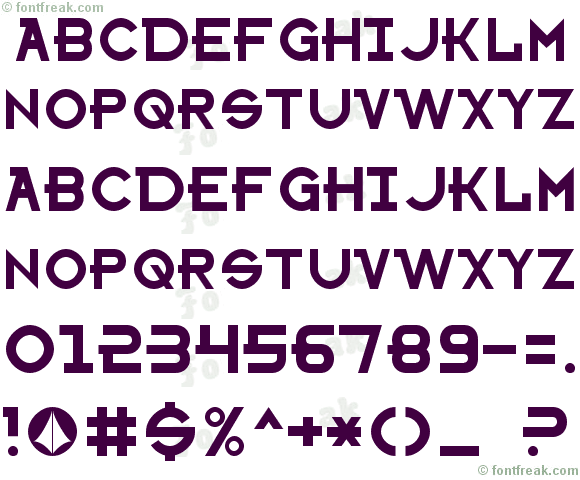
Kanno
About Kanno
Kanno is a striking sans-serif font designed by Neale Davidson in 2011, showcasing a contemporary aesthetic that marries minimalism with functionality. This font features a clean and modern approach, characterized by its geometric forms and balanced proportions. The stroke weight is consistent throughout, offering a sense of stability and clarity, while the moderate contrast between thick and thin lines adds a subtle dynamism to its overall appearance. The spacious letterforms enhance legibility, making Kanno a versatile choice for various applications.
The Kanno font shines in several specific use cases. It is ideal for branding projects, where clarity and modernity are paramount. Graphic designers can utilize Kanno in creating sleek logos that stand out in competitive markets. Additionally, its clean lines make it suitable for restaurant menus, providing a sophisticated yet approachable style that enhances the dining experience. Kanno can also be effectively used in advertising materials, such as movie posters and promotional flyers, where boldness and readability are essential. Content creators will appreciate its versatility for social media graphics and website headings, ensuring that their messages are communicated clearly and attractively.
What sets Kanno apart is its ability to blend modernity with functionality, making it an excellent choice for a wide range of design needs. Its simplicity and elegance ensure that it will enhance any creative project, allowing designers to make a bold statement while maintaining a polished look.